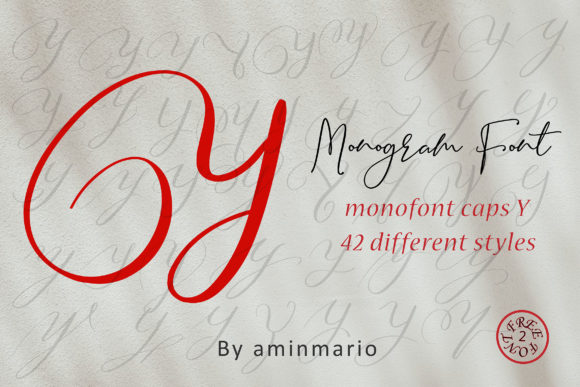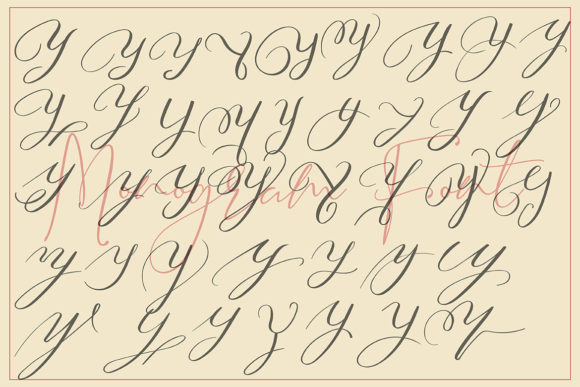
Monogram Y | Monofont Caps Y Font
This MONOGRAM is natural handwriting of capital Y with 36 different styles.
This is not for writing words or sentences, but for monograms. Bonus 2 Font that contains the uppercase and lowercase to support it.